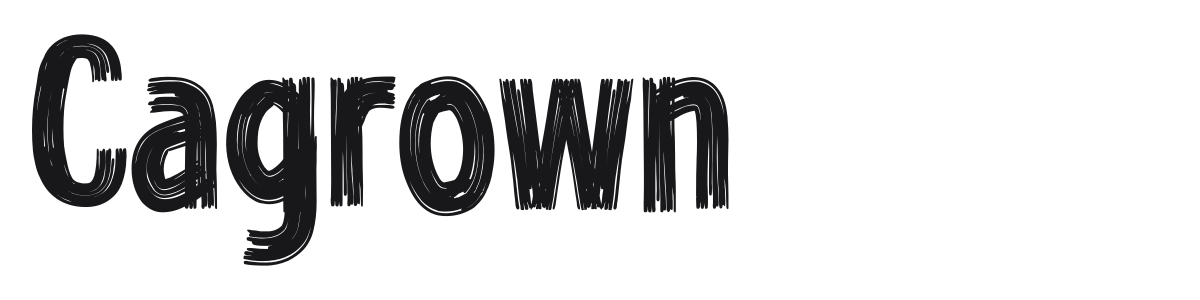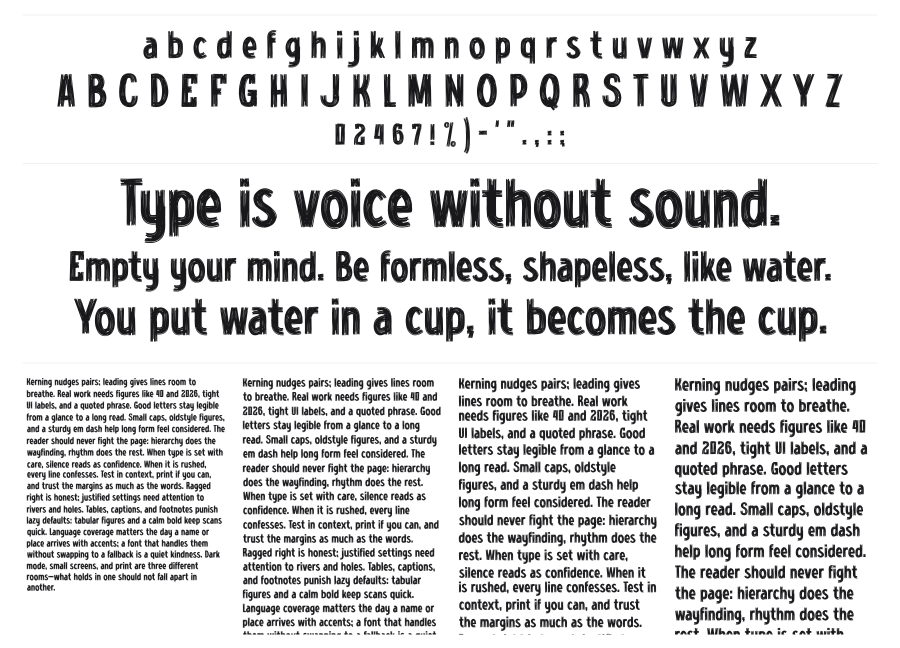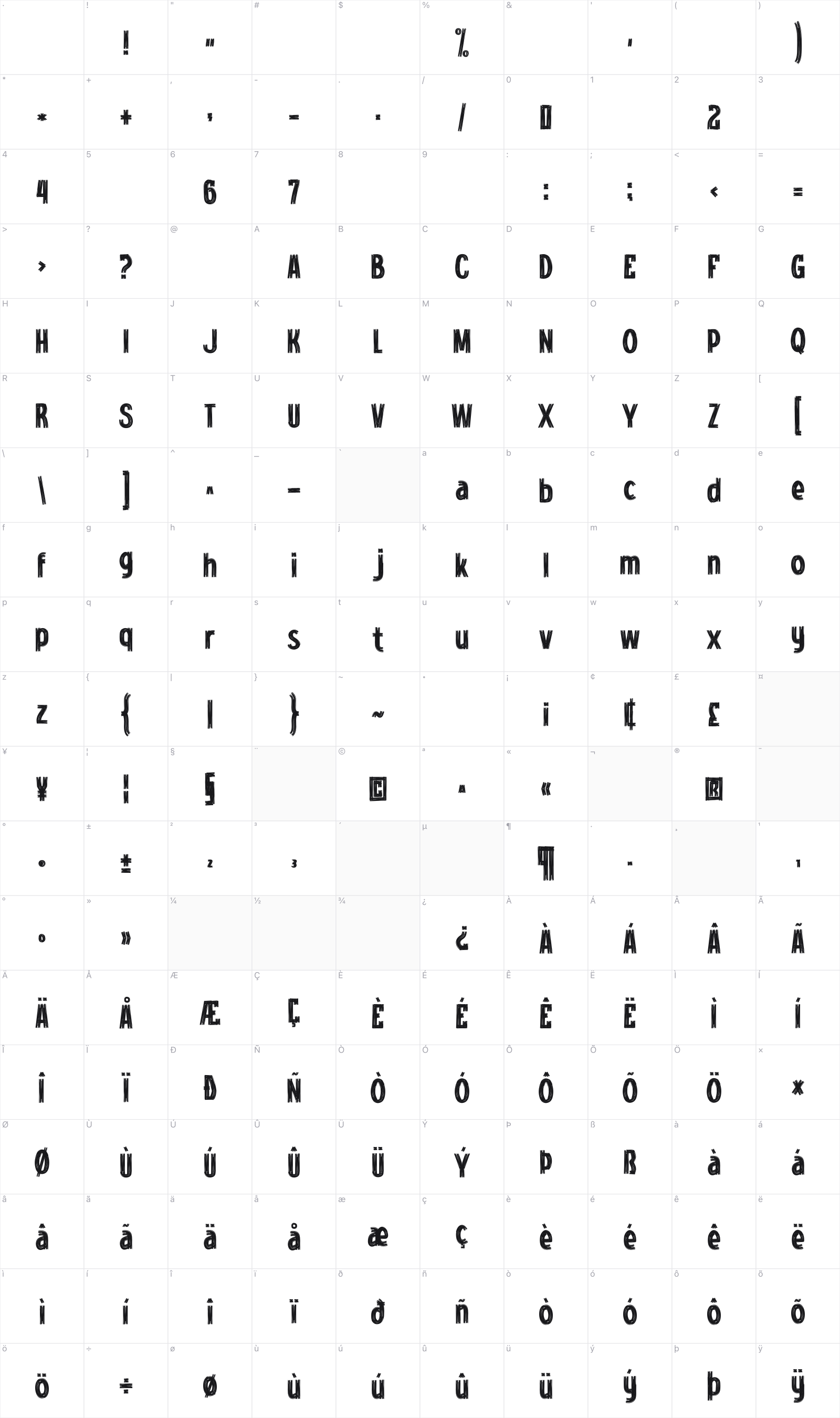
Cagrown
Cagrown is a bold rounded sans-serif with a scratchy, dry-brush texture built into every stroke. The underlying shapes are chunky and approachable, but the fibrous, multi-layered fill gives it a raw, handmade energy that stands out at large sizes. It works well anywhere that needs a casual, crafted feel without tipping into full grunge.